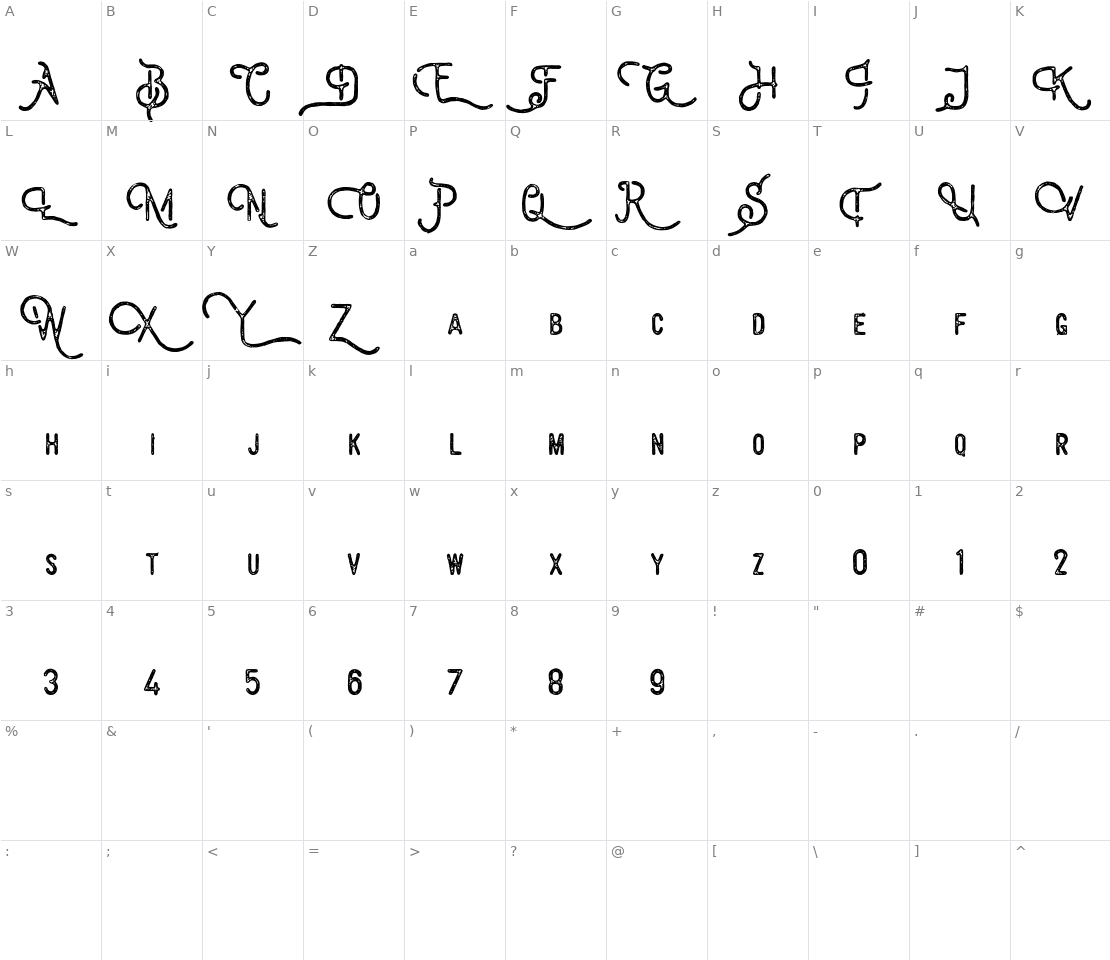
Billyforges
Billyforges is a distressed display face from Burntilldead Typefoundry that pairs ornate, decorative letterforms with heavy surface texture, as if something elaborate and Victorian got left out in the weather. The roughened edges and worn-in quality give it a vintage authenticity that feels earned rather than applied. Best at headline sizes for posters, packaging, or branding where you want something that reads as both detailed and lived-in.